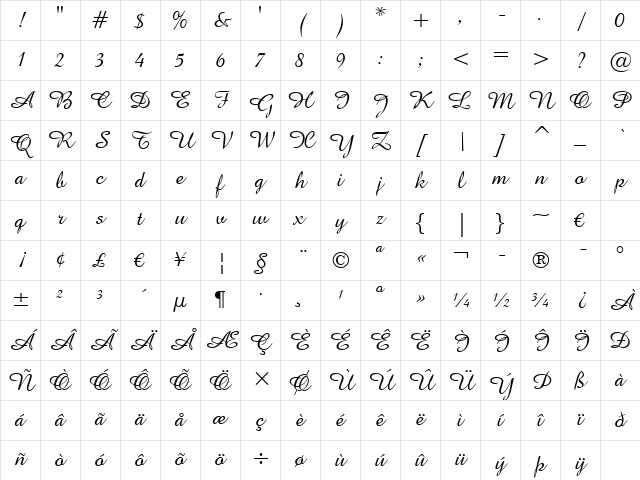
Amazone BT Regular Free Font
Amazone BT Regular
Amazone BT Family
Design Context for Amazone BT
Amazone BT is a composed and adaptable typeface that performs quietly and consistently across a wide range of design contexts.